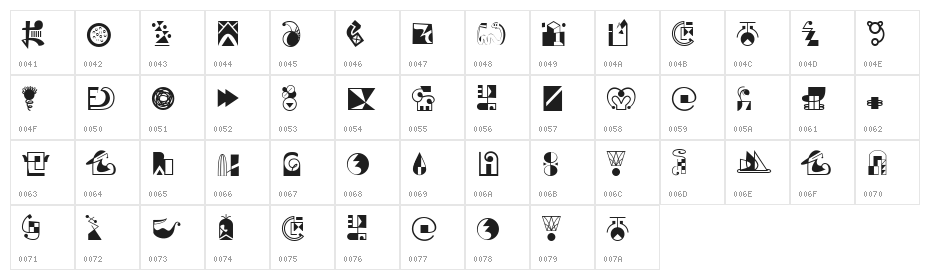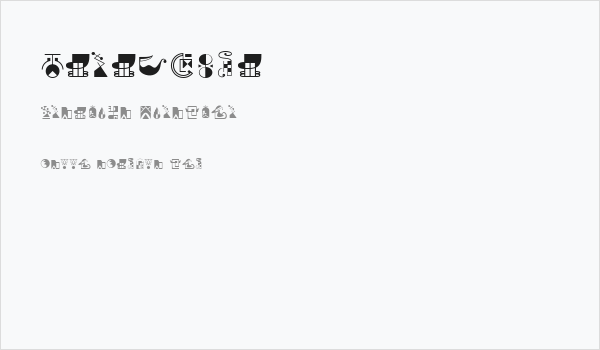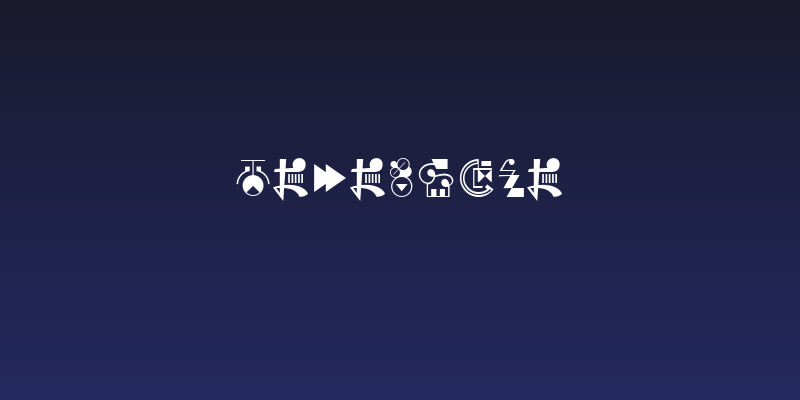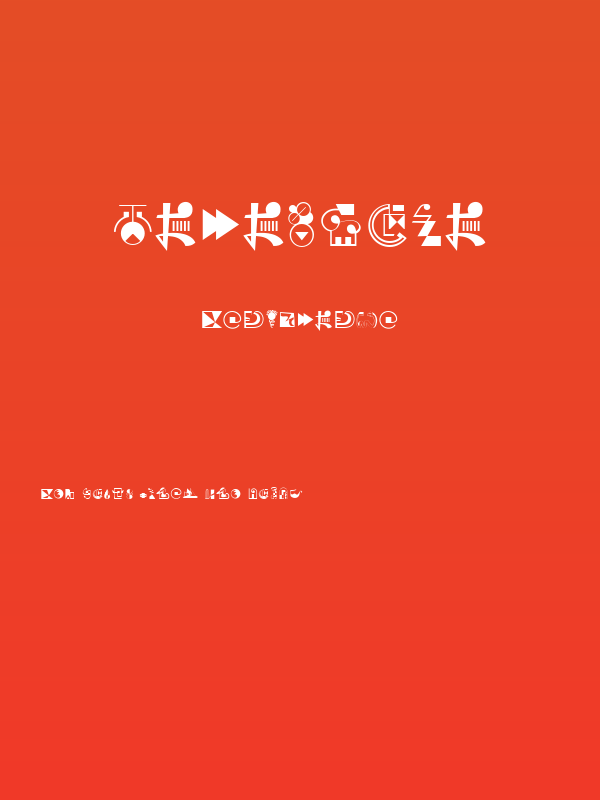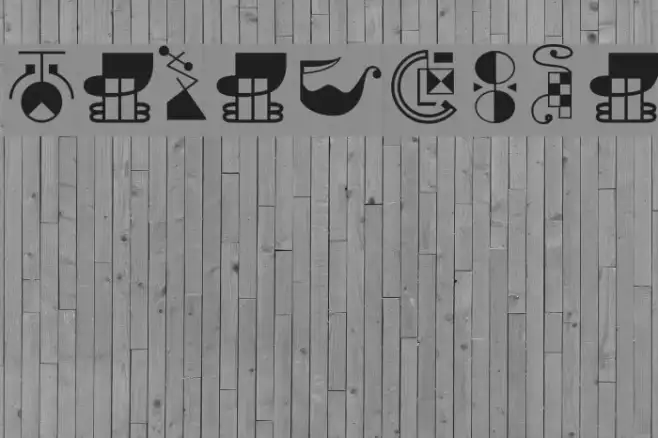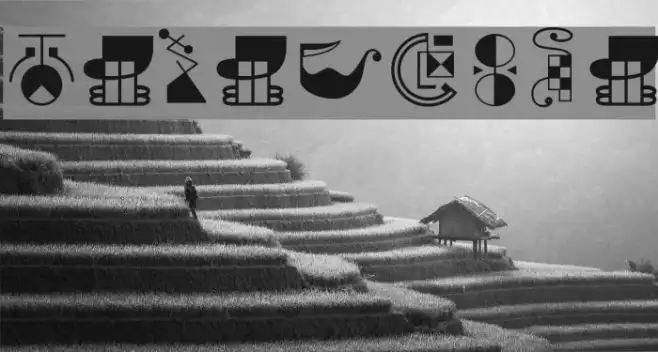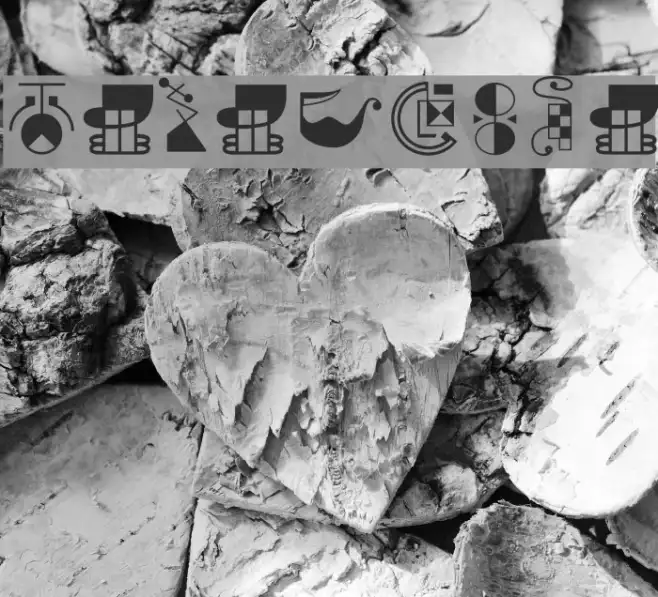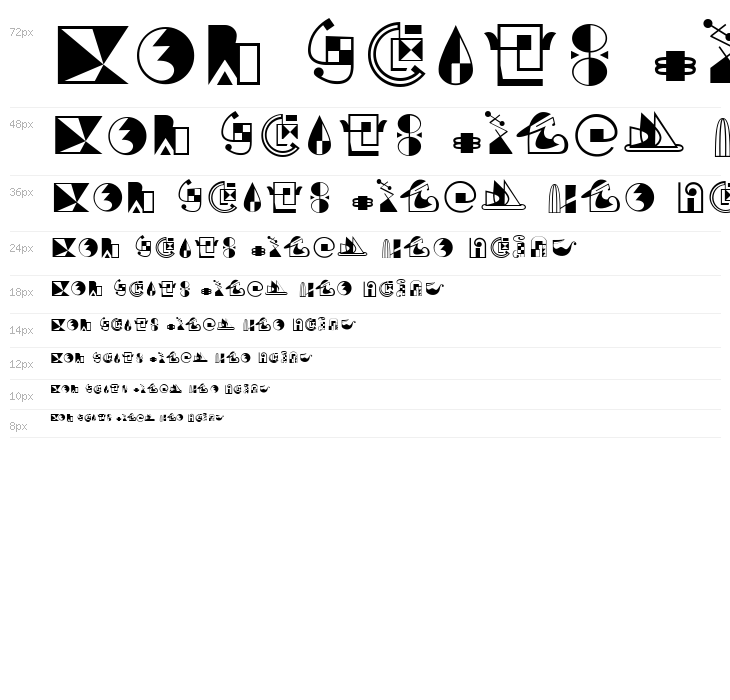
Larasukma Font
Larasukma Description
This design features a collection of abstract, geometric symbols that resemble a fusion of modern art and typography. Each character is uniquely crafted with a mix of solid shapes, lines, and curves, creating a visually striking and artistic appearance. The symbols are highly decorative, with a playful yet sophisticated style that evokes a sense of creativity and innovation. The use of contrasting black and white elements adds depth and dimension, making each symbol stand out distinctly. This set is not a traditional font but rather a series of artistic icons that could be used for various creative projects.
| Overall Style | Modern, Artistic, Abstract |
| Use Case | Logos, Artistic compositions, Graphic design |
| Proposed Projects | Ideal for use in graphic design projects, branding, logos, and artistic compositions where a unique and creative touch is desired. |